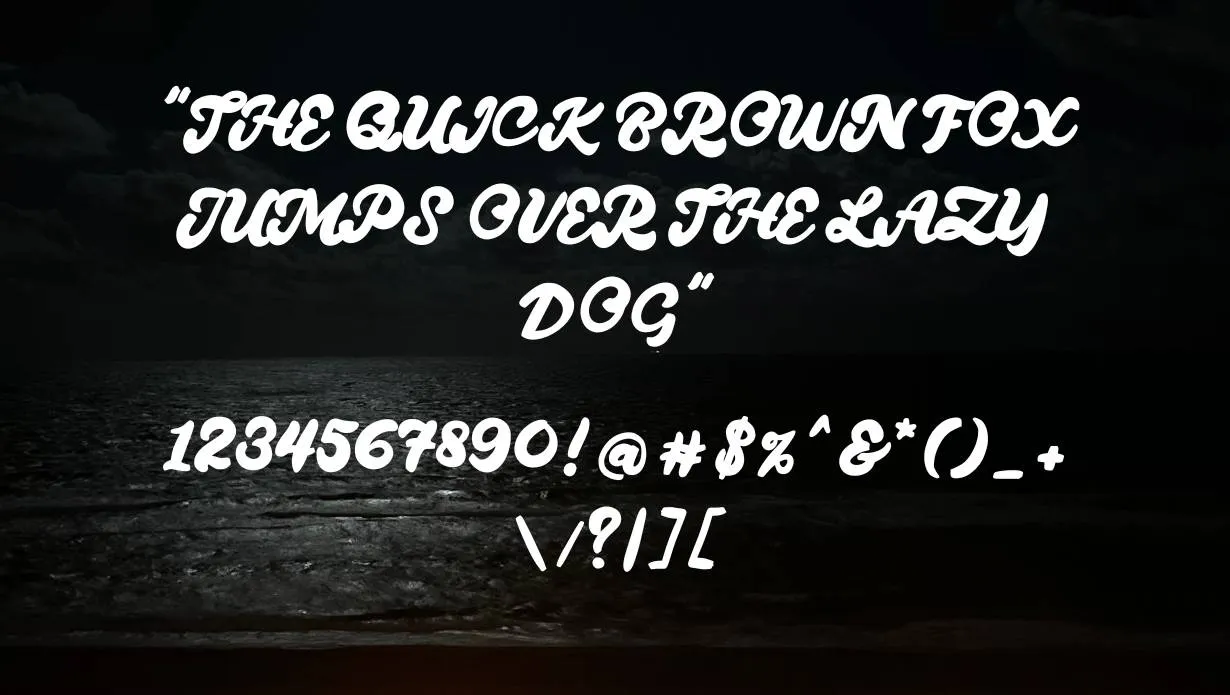
Quanty Modern Script Bold Font is a bold and expressive script typeface, known for its strong and dynamic design.
It’s often chosen for creative branding, advertising, and projects where designers want to create a memorable visual impact.
Quanty Modern Script Bold Font Family
| Name | Quanta Script Font |
| Designer | Vunira |
The font’s bold and elegant strokes add a sense of power and sophistication to your designs.